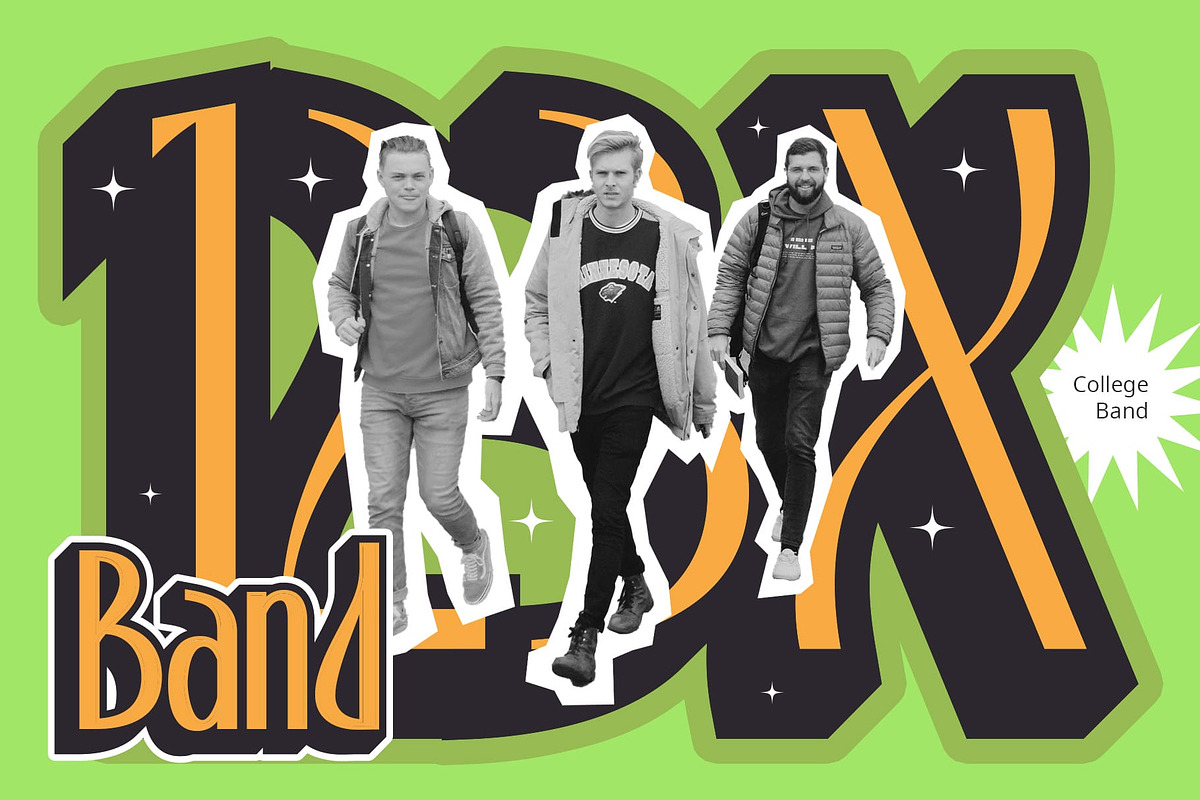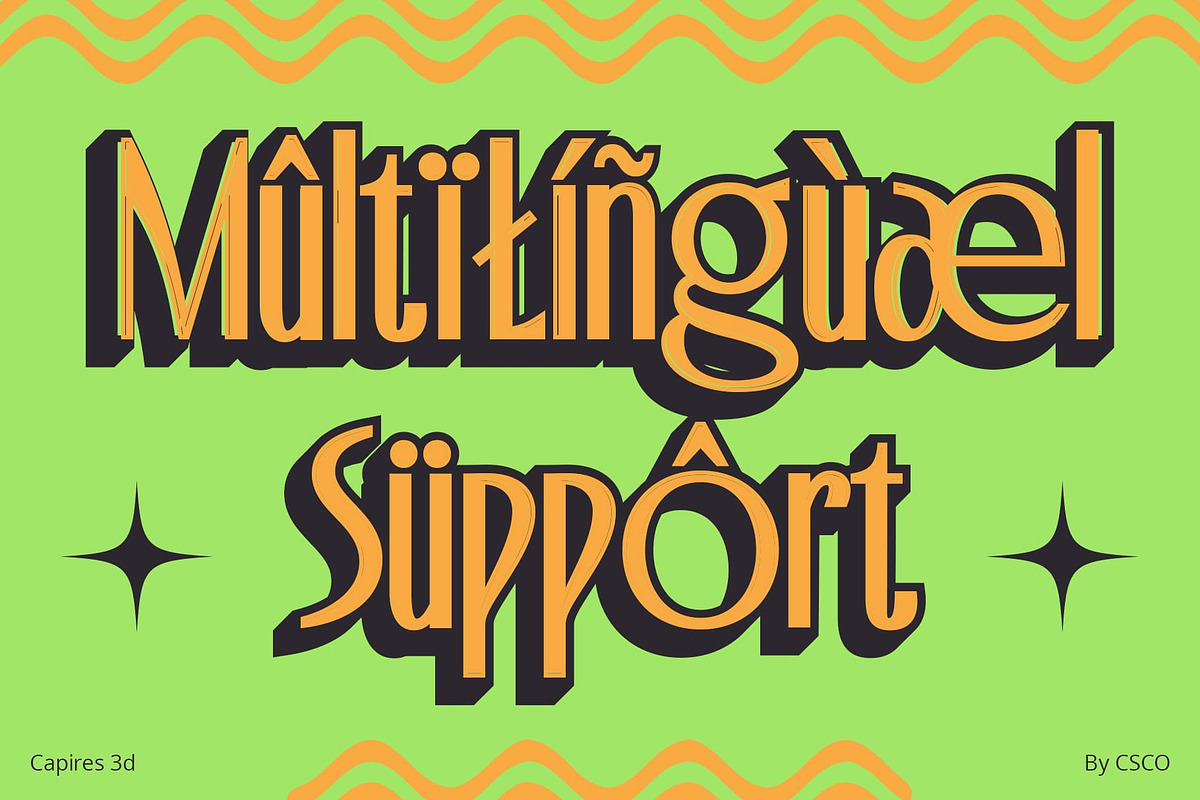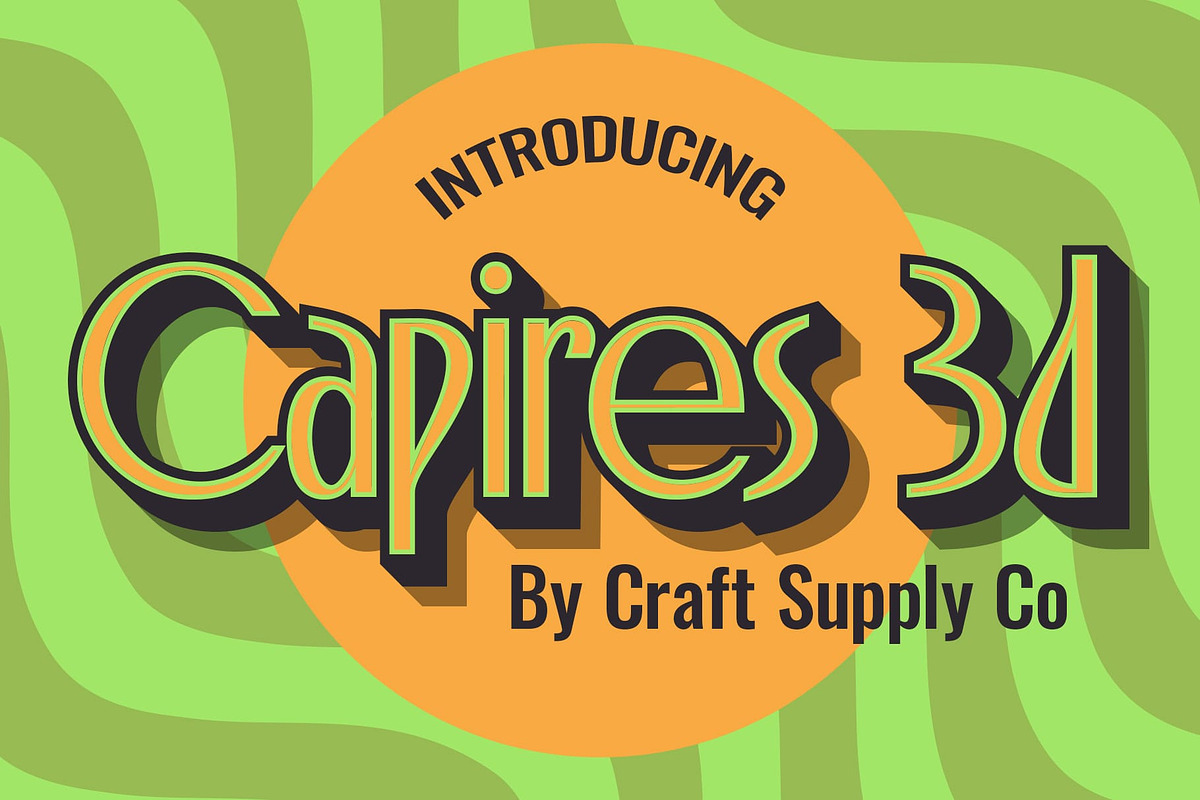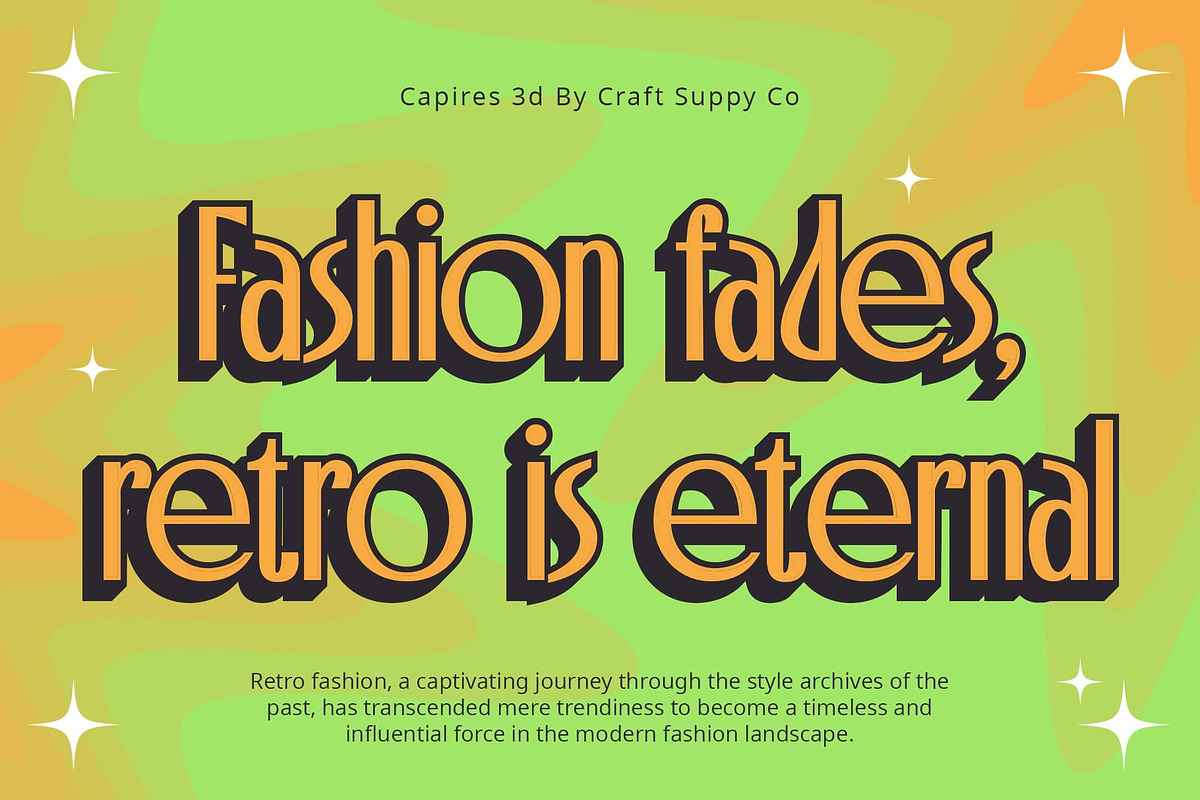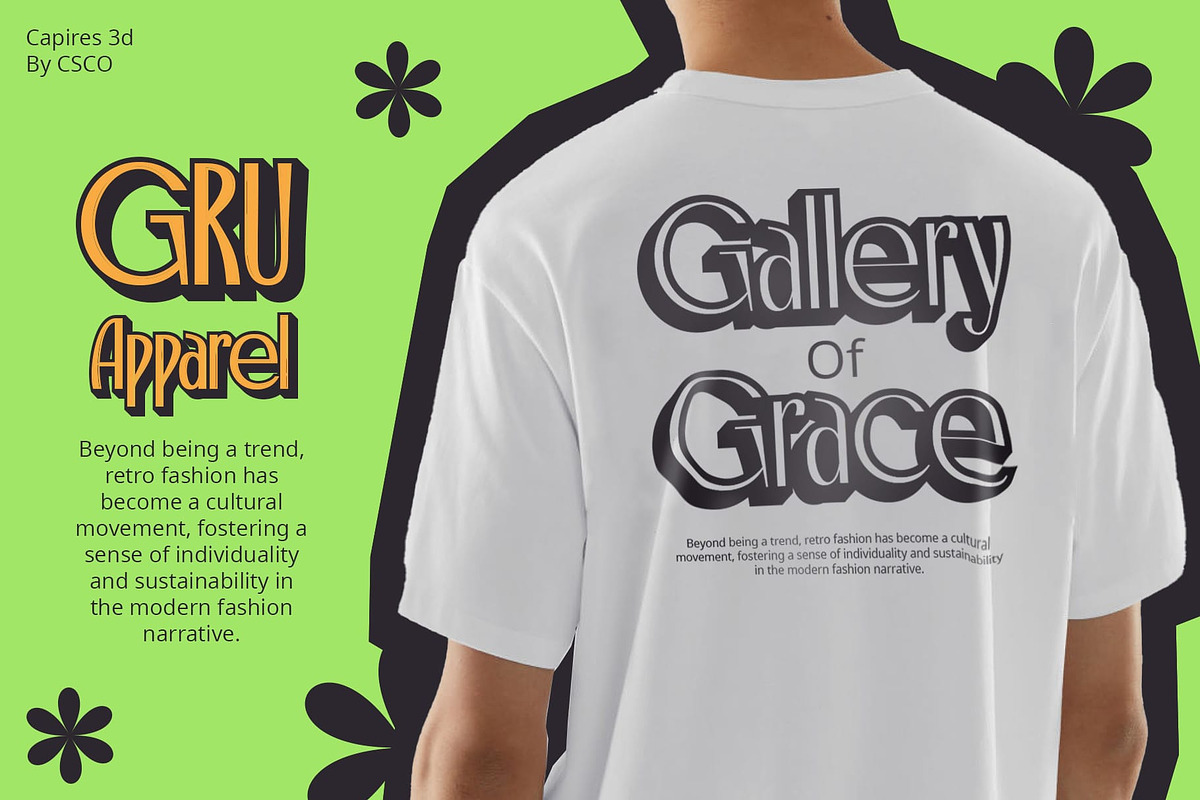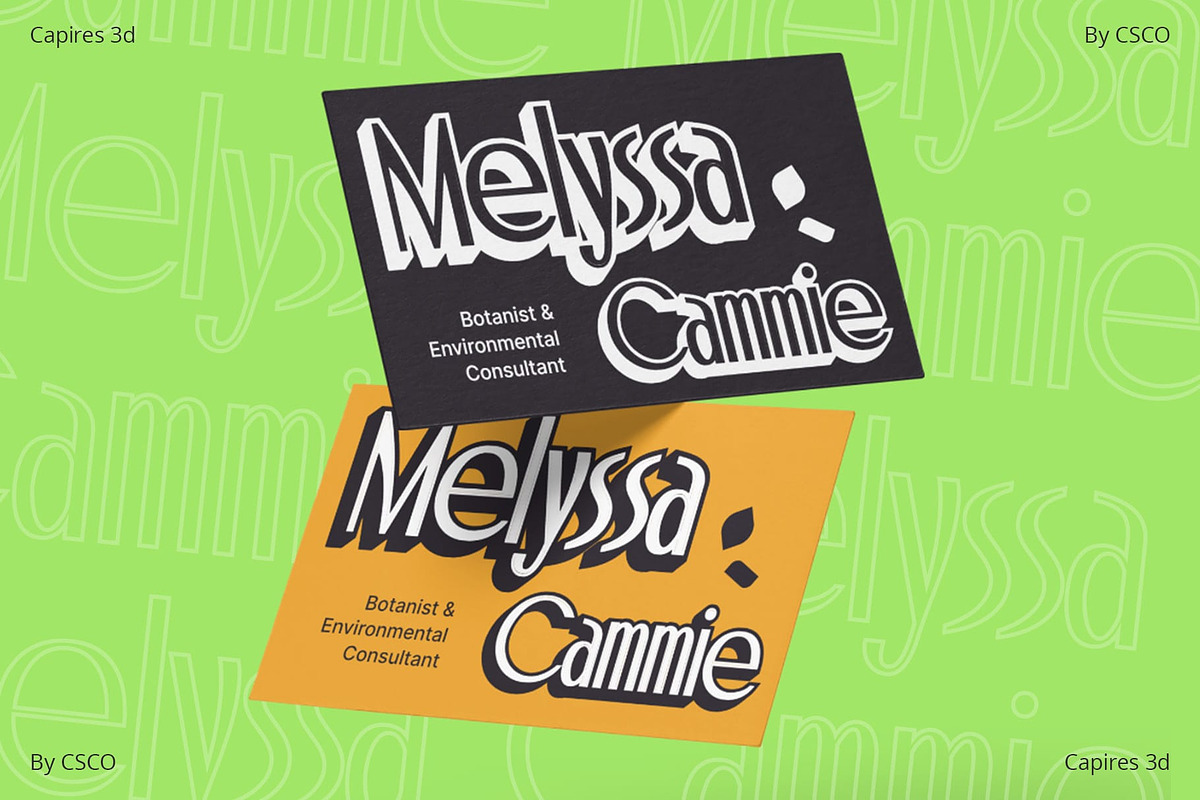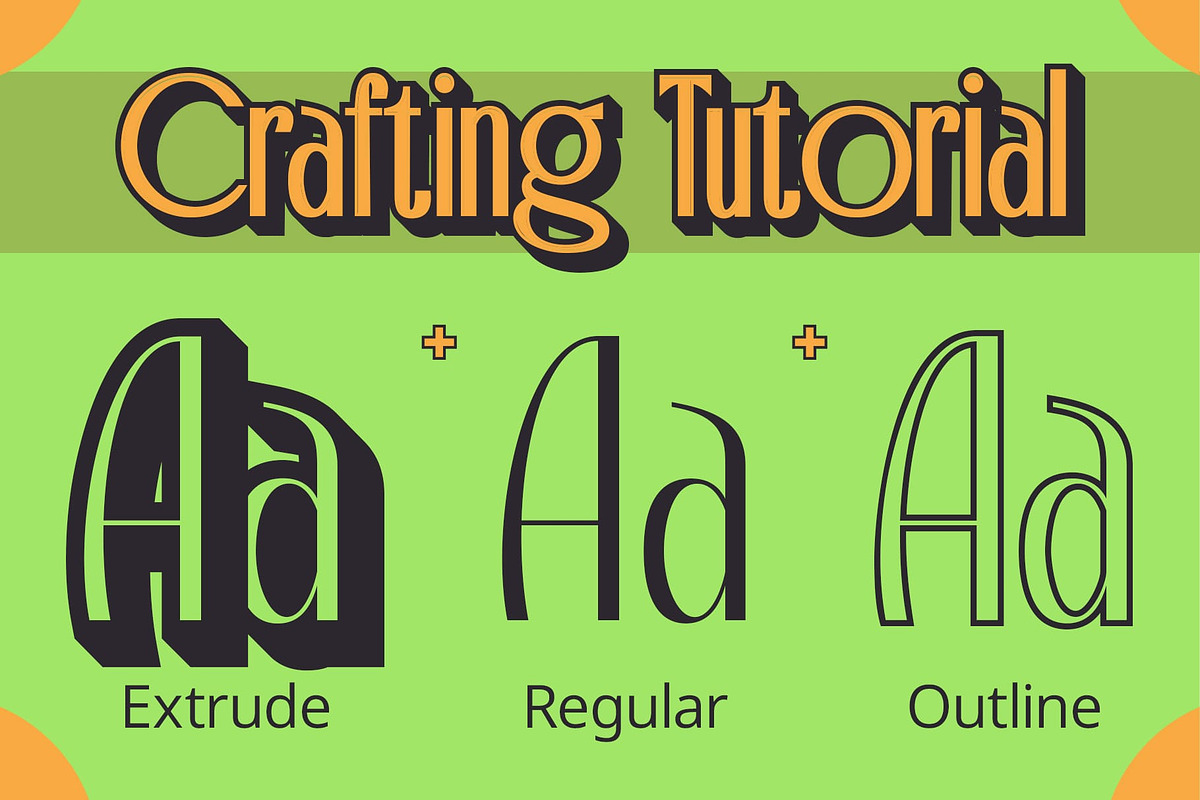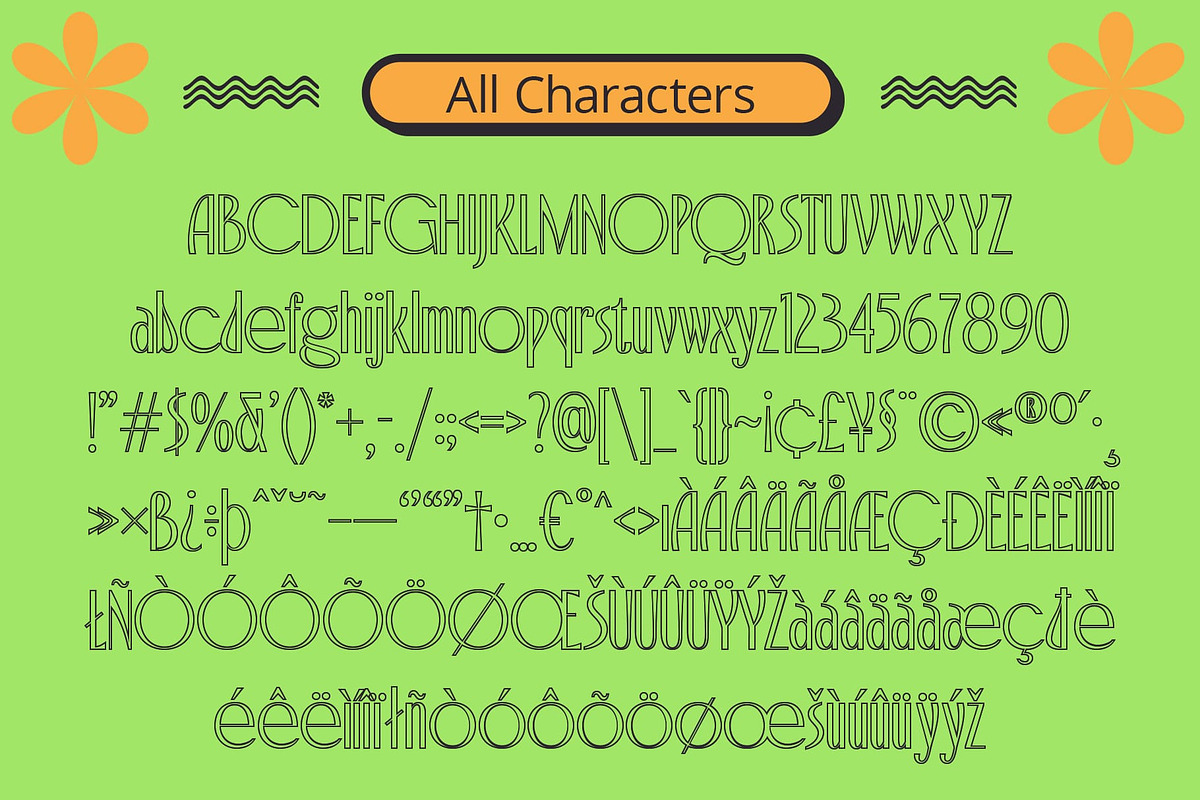
Capires 3D
Capires 3D: Art Nouveau Resurrected
Elegant Curves, Modern Edge Capires 3D, a display font, is a mesmerizing ode to Art Nouveau, seamlessly blending its meandering shapes with a modern 3D twist.
Sculpting Timeless Elegance Each character in Capires 3D is a work of art. Inspired by Art Nouveau, the font showcases flowing lines and intricate details, capturing the essence of timeless elegance.
Elevated Aesthetics in 3D Capires 3D doesn’t just stop at elegance; it introduces a new dimension. The 3D effect adds depth, bringing the Art Nouveau-inspired curves to life in a way that’s both enchanting and contemporary.
Versatility Across Designs While rooted in tradition, Capires 3D is versatile. It gracefully adapts to various design needs, from vintage-themed projects to modern layouts seeking a touch of Art Nouveau allure.
In conclusion, Capires 3D is not just a font; it’s a journey through time, combining the allure of Art Nouveau with the sophistication of contemporary design. Let your projects dance with the elegance of Capires 3D’s curves.